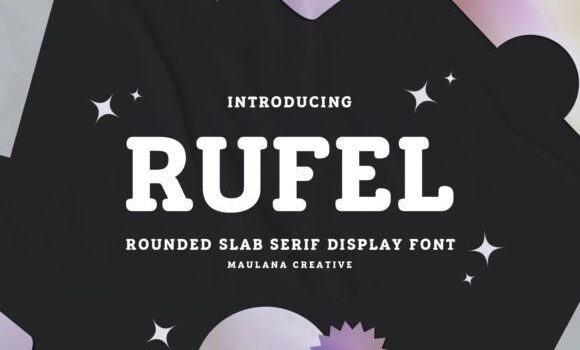
rufel
Rufel Font – Free Download Introduction to Rufel Font Rufel Rounded Slab Serif Display Font is a stylish and bold typeface. 📸 Preview Gallery 6 images 📌 Product Name Rufel Font 👤 Author Maulana Creative 📂 Category Explore ⬇️ Download